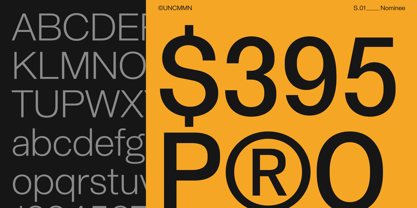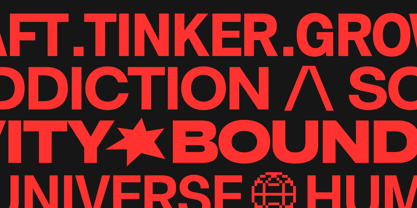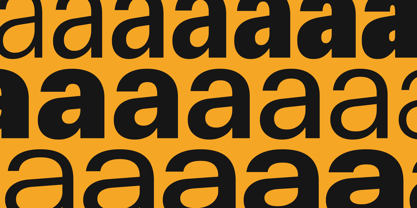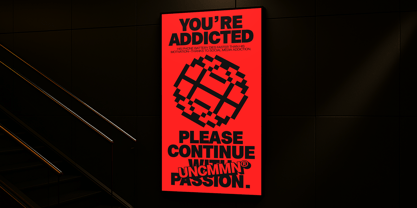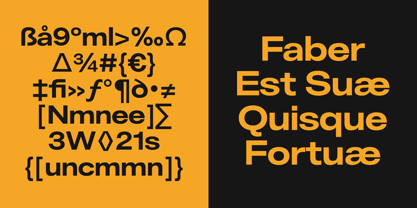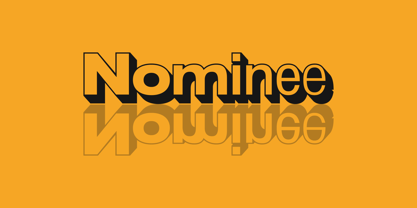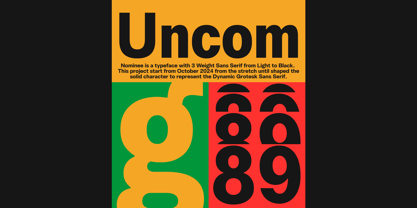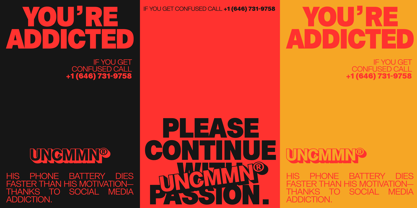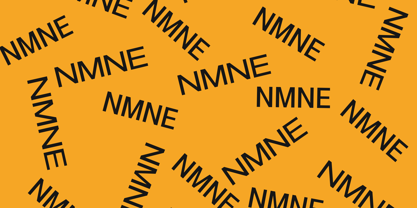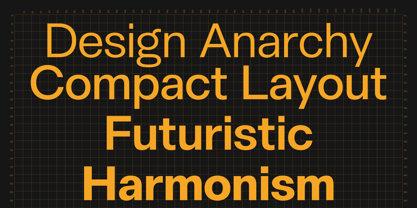
UNCMMN Nominee
by Uncmmn Lab
The UNCMMN Nominee Font Family was designed by Wahyu Ichsan Fauzi and published by Uncmmn Lab. UNCMMN Nominee contains 21 styles and family package options.
Nominee is a typeface with 3 width Sans serif from light to Black.